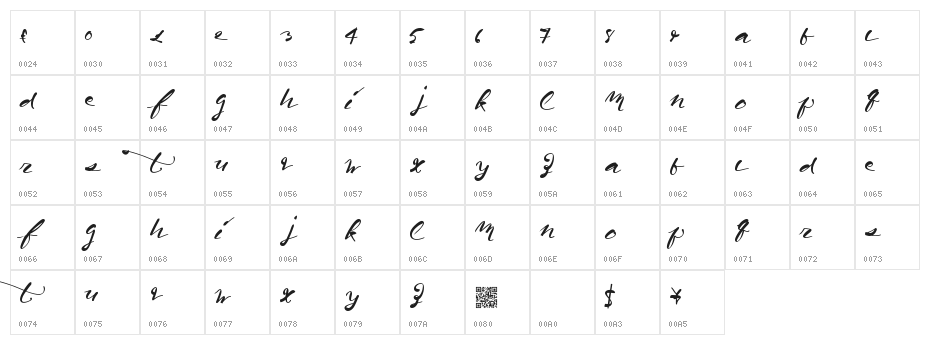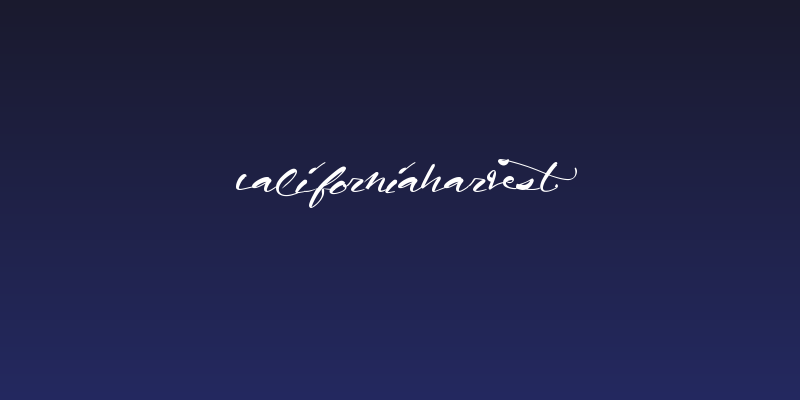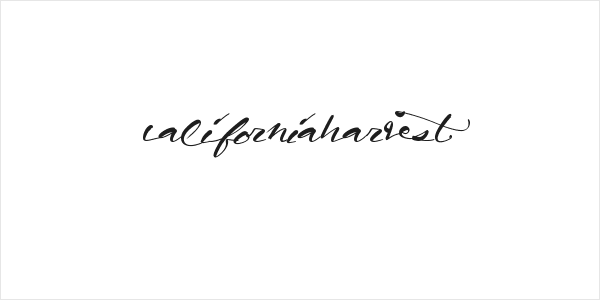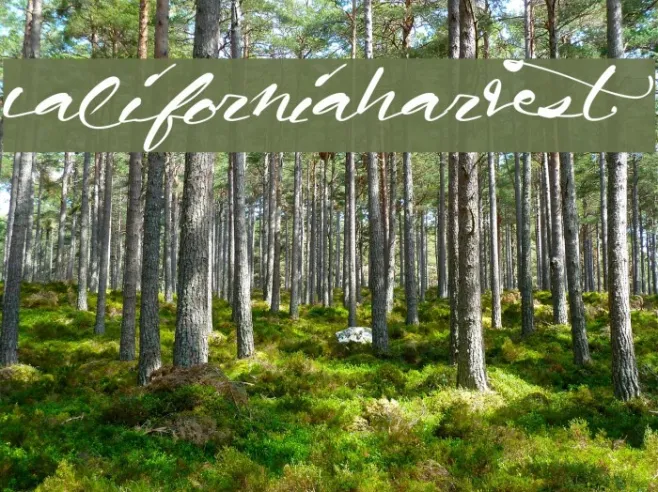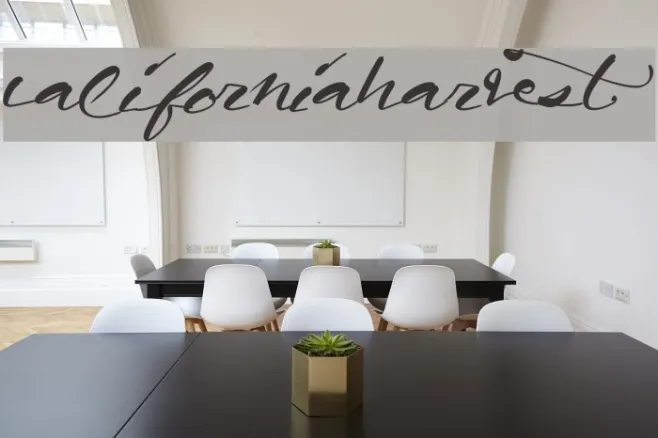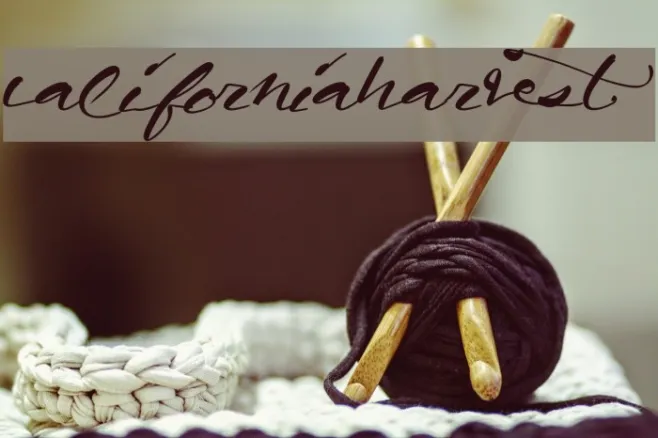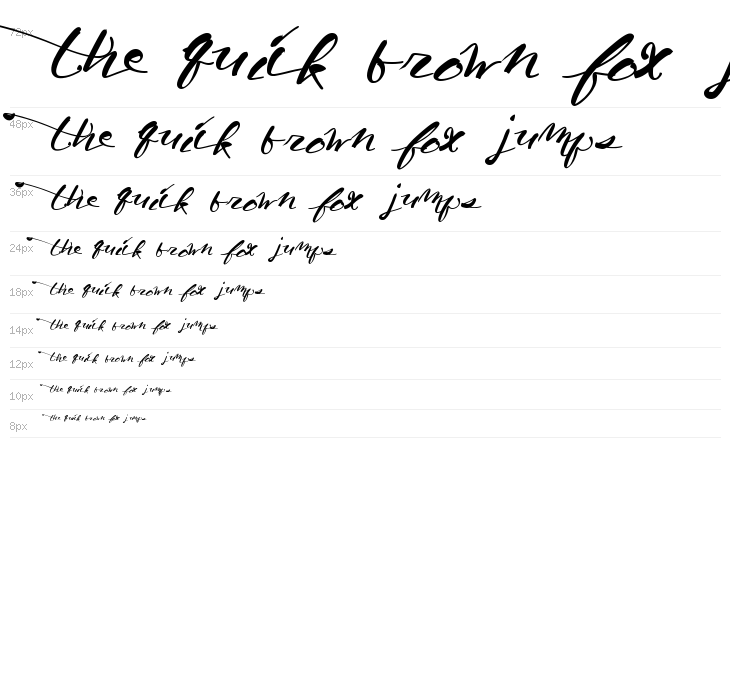
CaliforniaHarvest Font
CaliforniaHarvest Description
This font exudes a dynamic and expressive style, characterized by its fluid, cursive script that mimics the natural flow of handwriting. The letters are connected with sweeping strokes, giving it a lively and artistic appearance. The uppercase letters stand out with their bold and elaborate forms, while the lowercase letters maintain a consistent rhythm, enhancing readability despite the decorative nature. The numbers and special characters follow the same stylistic cues, ensuring a cohesive look across all elements. This font is ideal for projects that require a personal touch, such as invitations, greeting cards, or branding materials that aim to convey elegance and creativity.